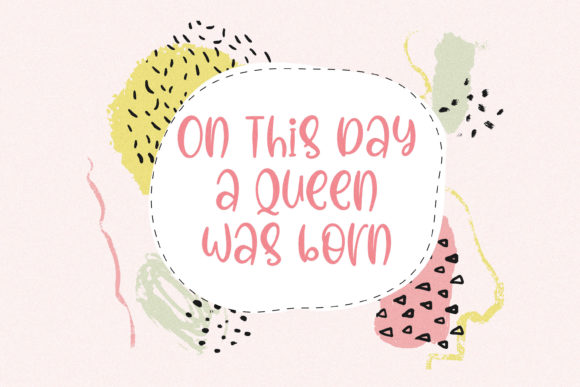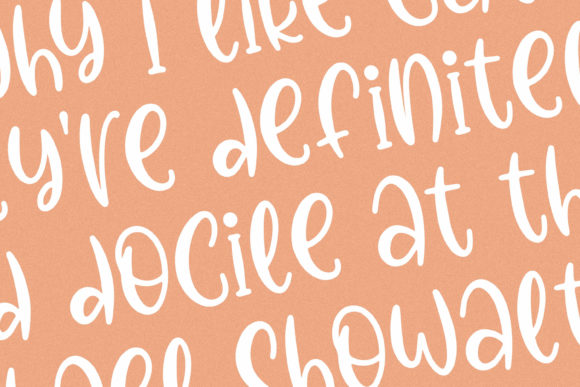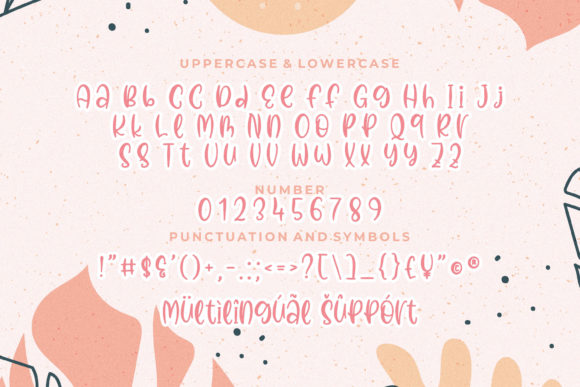
Introduction to Rosalia Holiday Font
Enter the Rosalia Holiday Font, a premium font that’s designed to elevate your creative project to new heights. With its quirky and luxurious feel, this font is perfect for a wide range of projects, from logos and branding to homeware designs and product packaging.
Key Features of Rosalia Holiday Font
- Unique and festive design ideal for creative projects, especially those related to holidays and celebrations.
- Perfect for designing greeting cards, party invitations, and other creative projects that require a touch of holiday magic.
Honest Review: Rosalia Holiday Font
As a designer, I’ve had the chance to work with numerous fonts, but the Rosalia Holiday Font caught my attention. I downloaded it for free, which was a great surprise, and started using it in a creative project. Here’s my honest review:
- ✨ High-quality design: The font is well-designed and visually appealing, making it perfect for various design projects.
- ⚠️ Limited font variations: Although the font itself is great, there are limited variations available, which might not be ideal for designers looking for more options.
- ⚠️ Not suitable for large text: Due to its decorative nature, Rosalia Holiday Font is best suited for smaller text sizes and titles.
Overall, I’m impressed with the Rosalia Holiday Font. It’s a valuable design resource that can add a unique touch to your creative projects. With a few limitations in mind, I would definitely recommend it to fellow designers looking for a high-quality, free download font.
The Rosalia Holiday Font is a high-quality design resource perfect for creative projects that require a touch of elegance and sophistication. With a transparent background, this font is ideal for adding a pop of color and style to your designs.
Tips for Getting the Most Out of Rosalia Holiday Font
To get the most out of the Rosalia Holiday Font, experiment with different font sizes, colors, and styles to create a unique look. Use the font in conjunction with other design elements to add depth and interest to your designs.
The Rosalia Holiday Font is perfect for a variety of creative projects, including:
- Party and event decorations
- Photography and graphic design projects